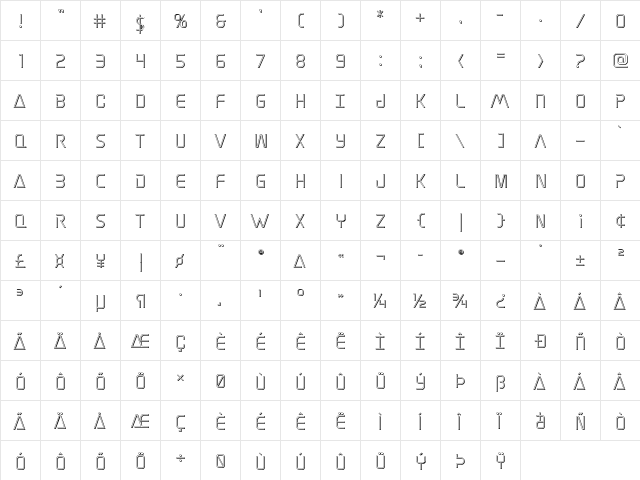
Elite Danger Outline Outline
Design Context for Elite Danger Outline Typeface
Elite Danger Outline brings ornamental detail and strong personality to headlines and identities, where visual impact matters more than quiet functionality.
Font Pairing: Pair with a clean neutral sans-serif for body copy to let Elite Danger Outline's character lead without overwhelming the composition.
Pro Tip: Treat Elite Danger Outline as the centrepiece of your typographic hierarchy. One strong heading set in a decorative face can carry an entire layout.